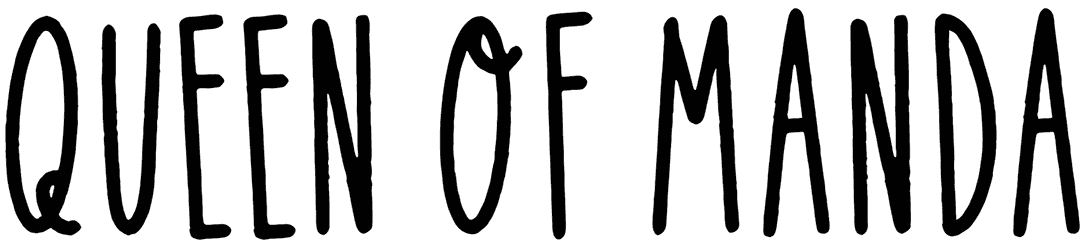
Queen Of Manda Font
Let’s make a lean, hand-drawn scene for your coming design by Queen Of Manda. No lowercase option, but as a handwritten font, it can promote texts with its fun and intimate mood. Set Queen Of Manda on kids’ posters, school theme design, covers, or any other project you are working on, and manifest your playful and minimal spirit.